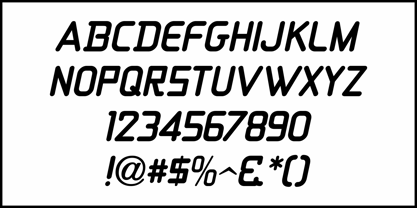
Car Dealer JNL
by Jeff Levine
Modeled from lettering found in images of various vintage Dodge dealership signs, the rounded terminals and squared characters evoke the Art Nouveau era when the round nib pen lettering first appeared.
This is now available as Car Dealer JNL in both regular and oblique versions.